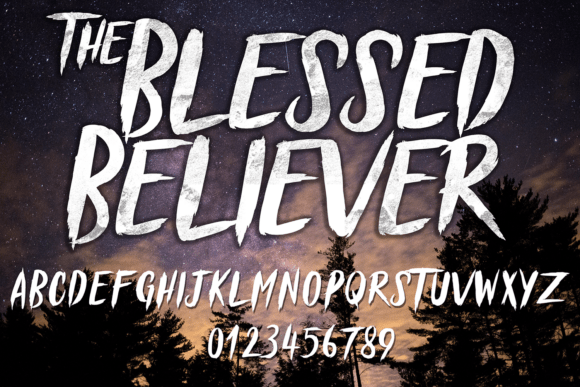
The Blessed Believer Font: A Game-Changer for Creative Projects
I’ll never forget the moment I stumbled upon the Blessed Believer font while working on a branding project for a client. I had tried countless fonts, but none seemed to capture the essence of the brand’s natural, handmade vibe. That was until I laid eyes on Blessed Believer – a stunning script font that instantly elevated my design to the next level!
So, what makes Blessed Believer so special? Here are a few things that I absolutely love about this font:
• ✨ Unique textured edges that give it a natural, handwritten feel
• ✅ Aesthetic look that’s perfect for branding, posters, and invitations
• 💫 Highly legible, even at smaller font sizes
• 🎨 Versatile and adaptable to various design styles and themes
Of course, no font is perfect, and Blessed Believer has a few minor quirks to keep in mind:
• 🤔 Some characters may require manual kerning for optimal spacing
The Story Behind Blessed Believer: Designer Inspiration
While the true story behind Blessed Believer remains a mystery, it’s easy to imagine that the designer was inspired by the natural world and a passion for handmade crafts. The font’s textured edges and aesthetic look evoke a sense of warmth and personality, making it perfect for designs that require a human touch.
What type of projects is Blessed Believer best suited for? Blessed Believer is ideal for branding, theme posters, invitations, posters, inspirational quotes, and merchandise that requires a natural, handwritten vibe.